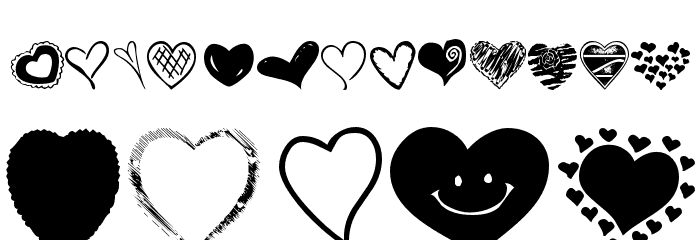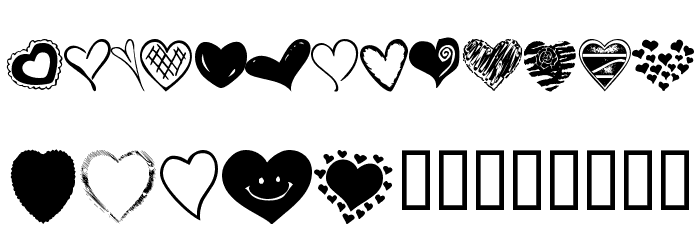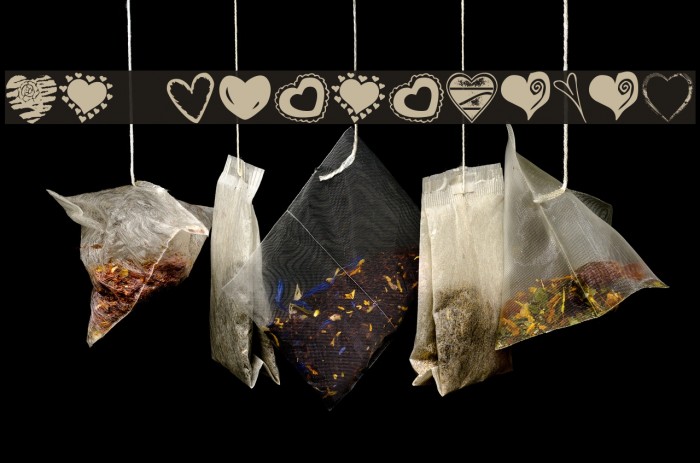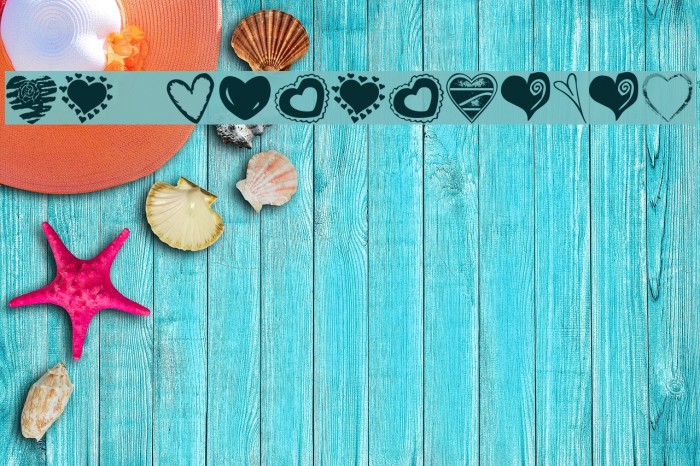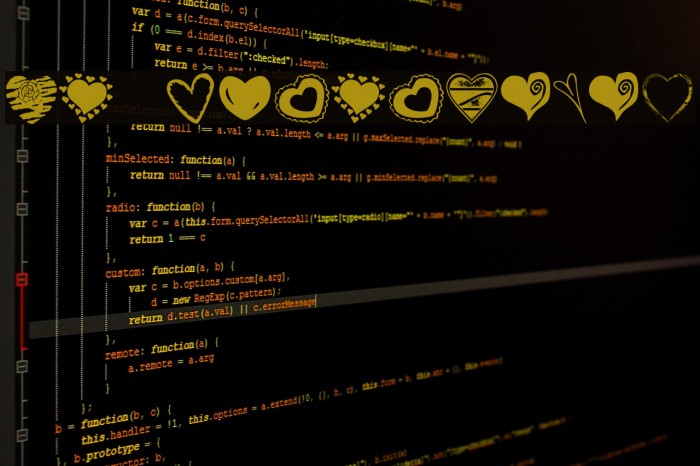
KR Heartalicious Font
This collection features a variety of heart shapes, each with a unique design. The hearts range from simple outlines to more complex patterns, including scribbled, textured, and filled designs. Some hearts incorporate additional elements like smiley faces or smaller hearts, adding a playful and whimsical touch. The diversity in styles makes this set versatile for different creative projects, offering both bold and subtle options. The designs are crisp and clear, suitable for both digital and print media.
A diverse set of heart designs ranging from simple outlines to intricate patterns.
- Proposed Projects: Ideal for Valentine's Day cards, wedding invitations, romantic-themed graphics, and decorative elements in digital design.
- Overall Style: Playful
- Use Case: Decorative elements, Greeting cards, Invitations